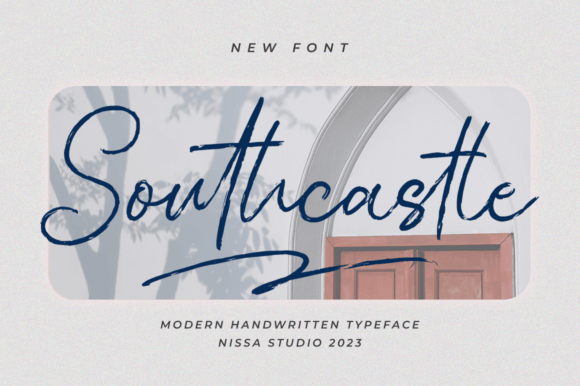
Introducing Southcastle Font, the perfect script font for all your design needs! This gorgeous and bold brushed display font, created by NissaStudio, is designed to add a stylish touch to your headlines and logotype projects. With its strong and confident style, Southcastle is perfect for adding nostalgic character to your designs.
Not only is Southcastle visually stunning, but it's also incredibly versatile. PUA encoded, this font grants easy access to all the amazing glyphs and ligatures, allowing you to create unique and personalized designs effortlessly. With its ability to evoke emotions and capture attention, Southcastle is perfect for creating striking designs that stand out.
Whether you're designing logos, posters, invitations, or any other creative project, Southcastle is the perfect font to elevate your designs to the next level. Its captivating and unique style is sure to impress and leave a lasting impression on your audience. So why settle for ordinary fonts when you can have Southcastle, a font that's as bold and dynamic as your ideas?